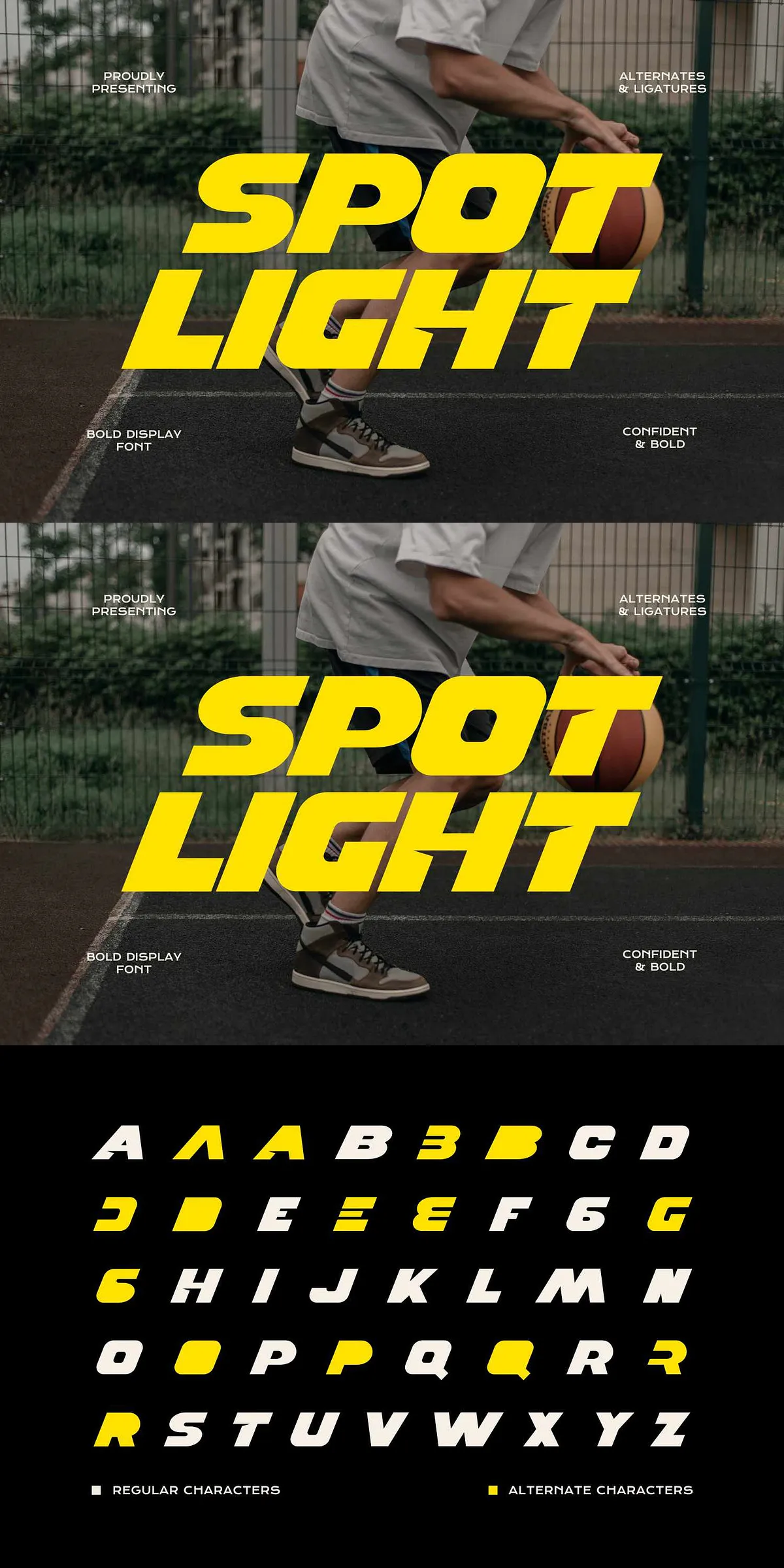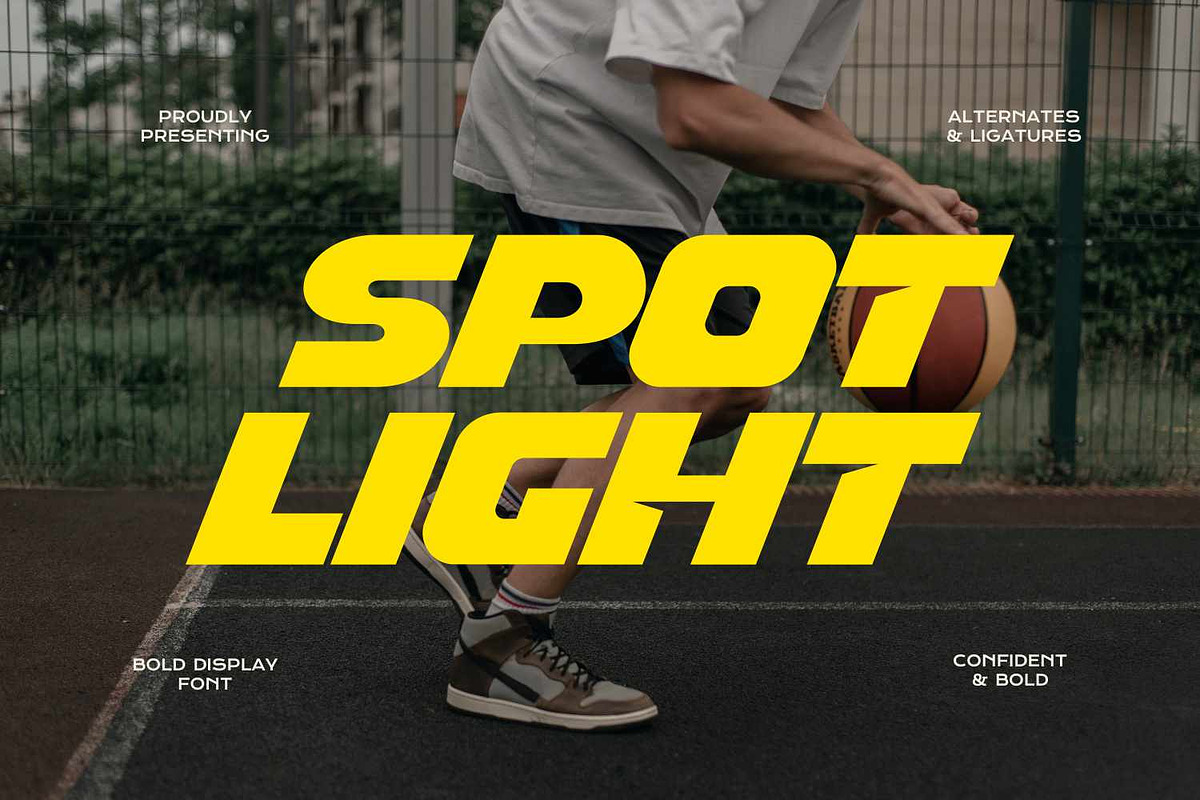
Command attention the moment a viewer lays eyes on your work with Spot Light — a bold, high-velocity display font engineered to dominate. Every stroke of this font pulses with energy, driven by a sharp forward slant that screams motion, momentum, and unrelenting confidence. This isn’t just a typeface — it’s a design force multiplier.
Engineered for Power: The Anatomy of a High-Impact Font
Spot Light doesn’t follow trends — it creates them. With its exaggerated angularity, tight kerning, and dynamic weight distribution, it delivers an instant adrenaline rush to static visuals. The letterforms are constructed to look like they’re mid-stride — pushing forward, breaking barriers, demanding notice.
Each character is meticulously crafted to maintain balance under extreme pressure. Even at maximum size, the structure remains sharp, clean, and razor-focused. No soft edges, no hesitation — only precision. This font was built for designs that need to cut through noise, whether in print, digital, or physical spaces.
Designed for Action: Use Cases That Demand Strength
Spot Light thrives where intensity matters:
- Sports & Athletic Branding — Create championship-level logos for teams, training programs, or event posters. Its forward thrust mirrors the energy of a sprinter at the starting line.
- Streetwear & Apparel Design — Brand t-shirts, hoodies, and caps with fonts that speak rebellion, speed, and authenticity. Spot Light turns fashion into a statement.
- Automotive & Racing Graphics — Design logos for race teams, car wraps, or speed-based campaigns. The font’s aggressive slant mirrors the motion of a high-speed vehicle.
- Video Game & Tech Logos — Infuse game titles, UI elements, and promotional graphics with a sense of urgency and digital edge. Perfect for retro-futuristic racing or high-octane action games.
- Poster & Advertising Campaigns — Use it for concert flyers, sports showdowns, product launches, or limited-time deals. Grab attention before the eye even lands on the image.
- Slogans & Taglines — Turn motivational phrases like “Break Limits” or “Speed Up” into powerful visual statements that stick in memory.
No matter the medium, Spot Light delivers maximum impact with minimal effort.
Mastering the Design Language: How to Use Spot Light Strategically
While powerful on its own, Spot Light performs best when used with intention and restraint. Here’s how to harness its raw energy without overwhelming your composition:
Pair with Minimalism
Balance Spot Light’s intensity by pairing it with clean, neutral backgrounds or simple geometric shapes. Let the font do the talking — don’t compete with it. A black-on-white flyer with a Spot Light headline will command more attention than a cluttered layout.
Limit Usage to Key Elements
Use Spot Light only for headlines, logos, or impactful taglines. Avoid using it in long blocks of body text. Its strength lies in brevity and impact, not readability under sustained attention.
Play with Size and Color
Scale it up to maximum size for posters and banners. For digital work, consider layering with subtle glows, gradients, or shadows to amplify its dynamic feel. Color choices matter: neon pinks, electric blues, or high-contrast black-on-yellow can heighten its futuristic or edgy tone.
Use in Motion Graphics
Spot Light shines in animation. Add a subtle slide-in effect, rotation, or pulse effect to make it appear as if the text is accelerating into the frame — perfect for video intros, title cards, or social media ads.
Technical Excellence: Built for Real-World Design
Spot Light isn’t just bold — it’s professional-grade, ready for production. The font delivers:
- Multiple weights — Includes Regular, Bold, and Black variants for fine-tuned visual hierarchy.
- Full OpenType support — Access to stylistic alternates, contextual ligatures, and swash features for expressive typographic variation.
- Comprehensive character set — Extensive coverage of Latin characters, punctuation, numerals, currency symbols, and diacritics for multilingual use.
Stand Out — No Excuses, No Compromise
Spot Light doesn’t ask for permission. It takes the spotlight. If your design needs to shock, inspire, or electrify — this is the font you reach for.
Whether you’re pushing a new product, launching a sports campaign, or building a streetwear identity, Spot Light gives you the power to say it loudly, clearly, and with undeniable presence.
Choose Spot Light — the font that doesn’t just announce your message. It announces your arrival.